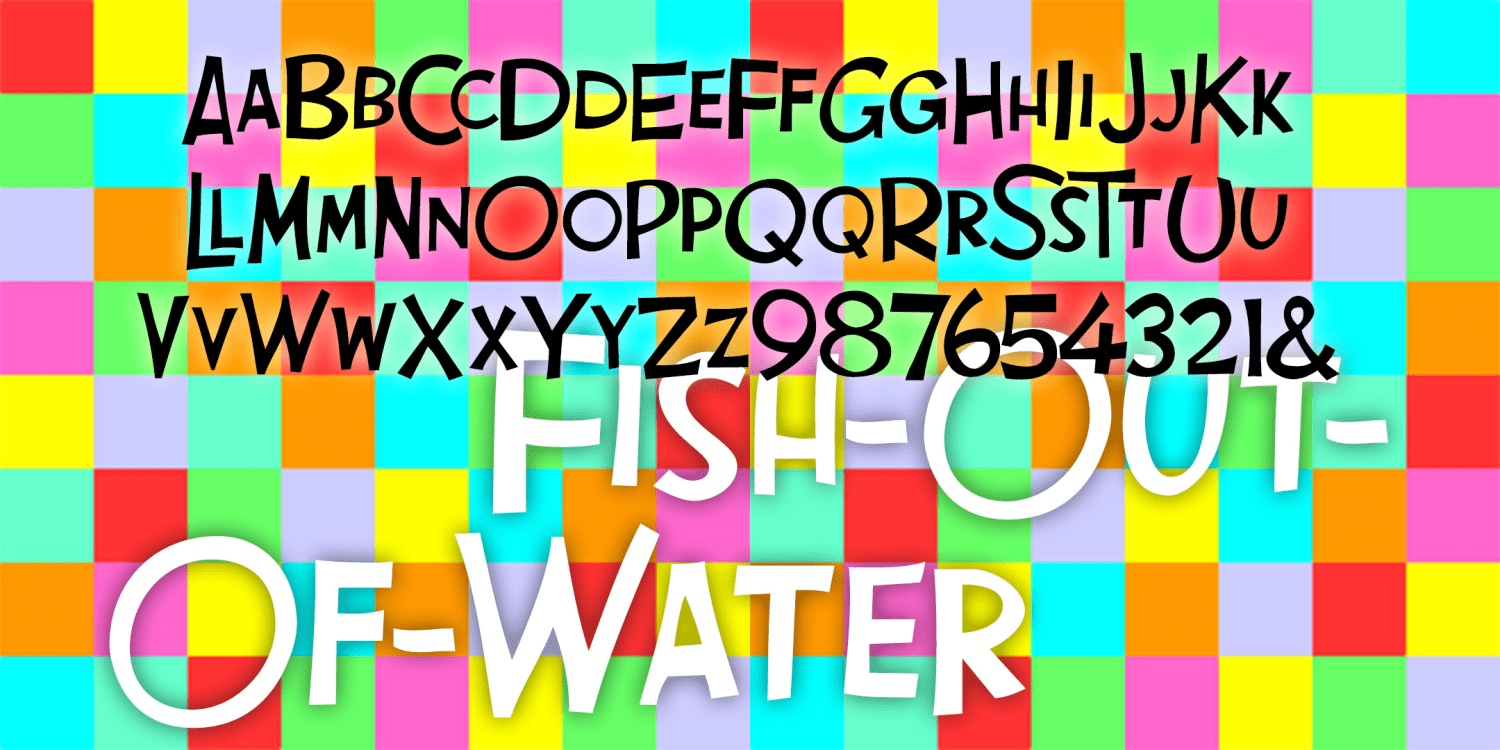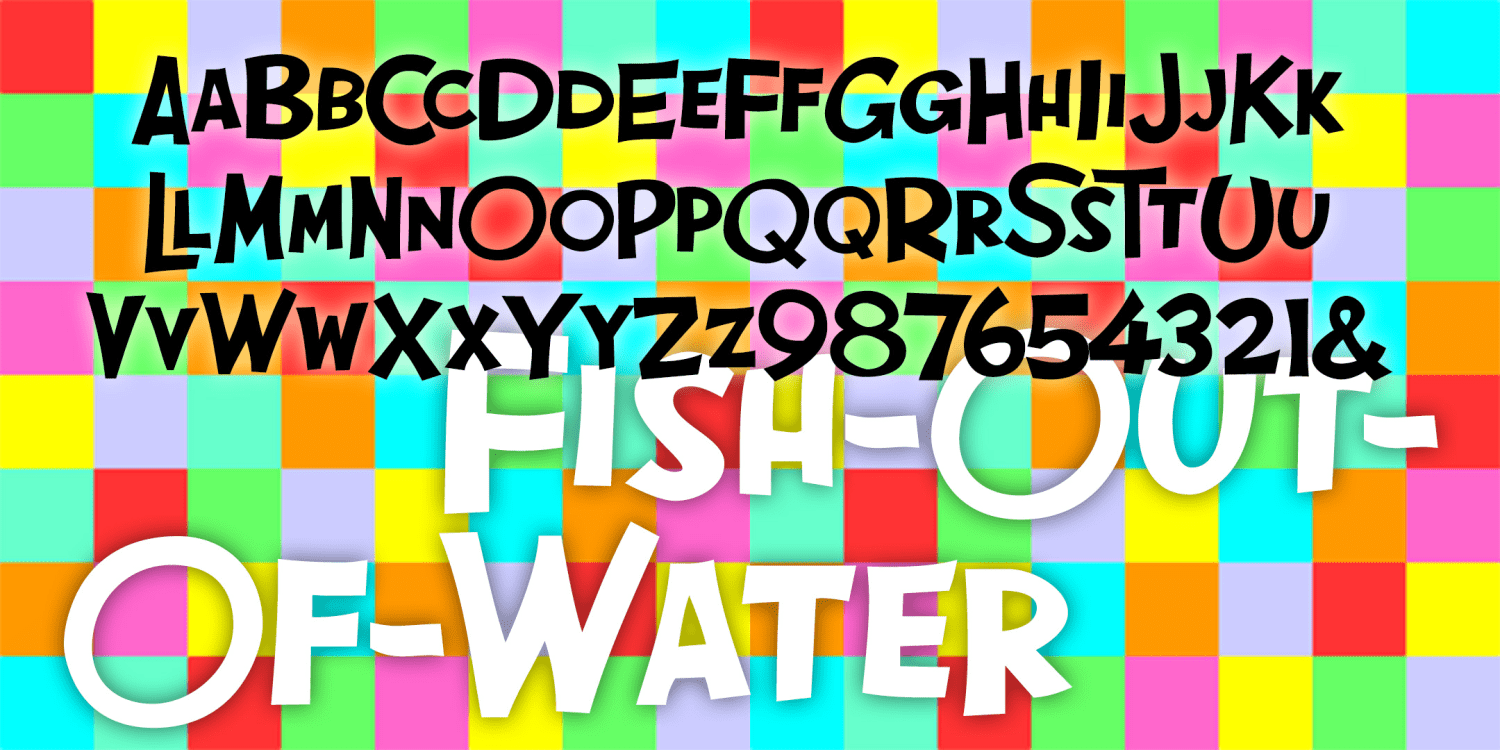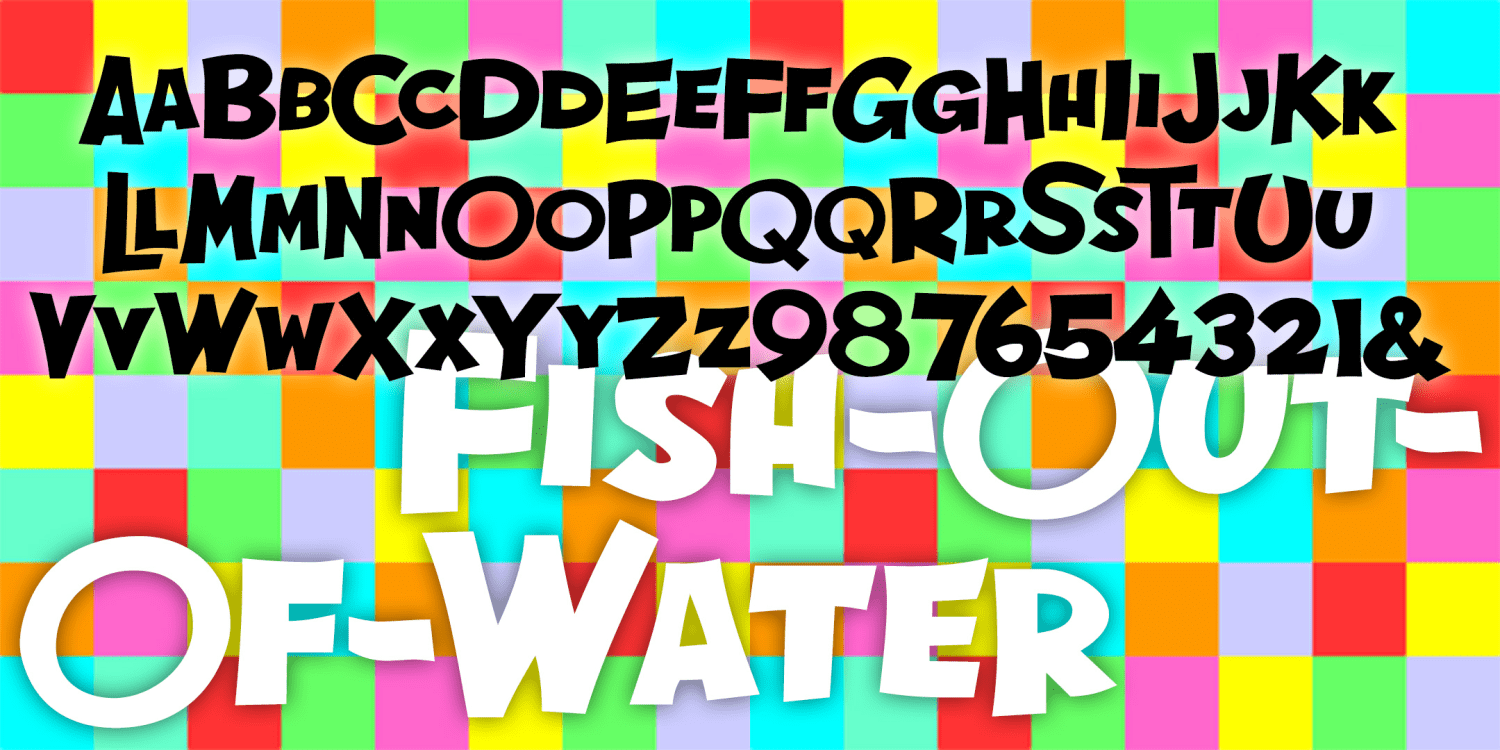
Fish Out Of Water
FISH OUT OF WATER is the perfect comedy font, inspired by the opening titles of Billy Wilder’s Some Like It Hot (1959, art direction by Ted Haworth). Loose-shaped large and small caps suggest unpredictable fun. In 3 weights for greater flexibility.